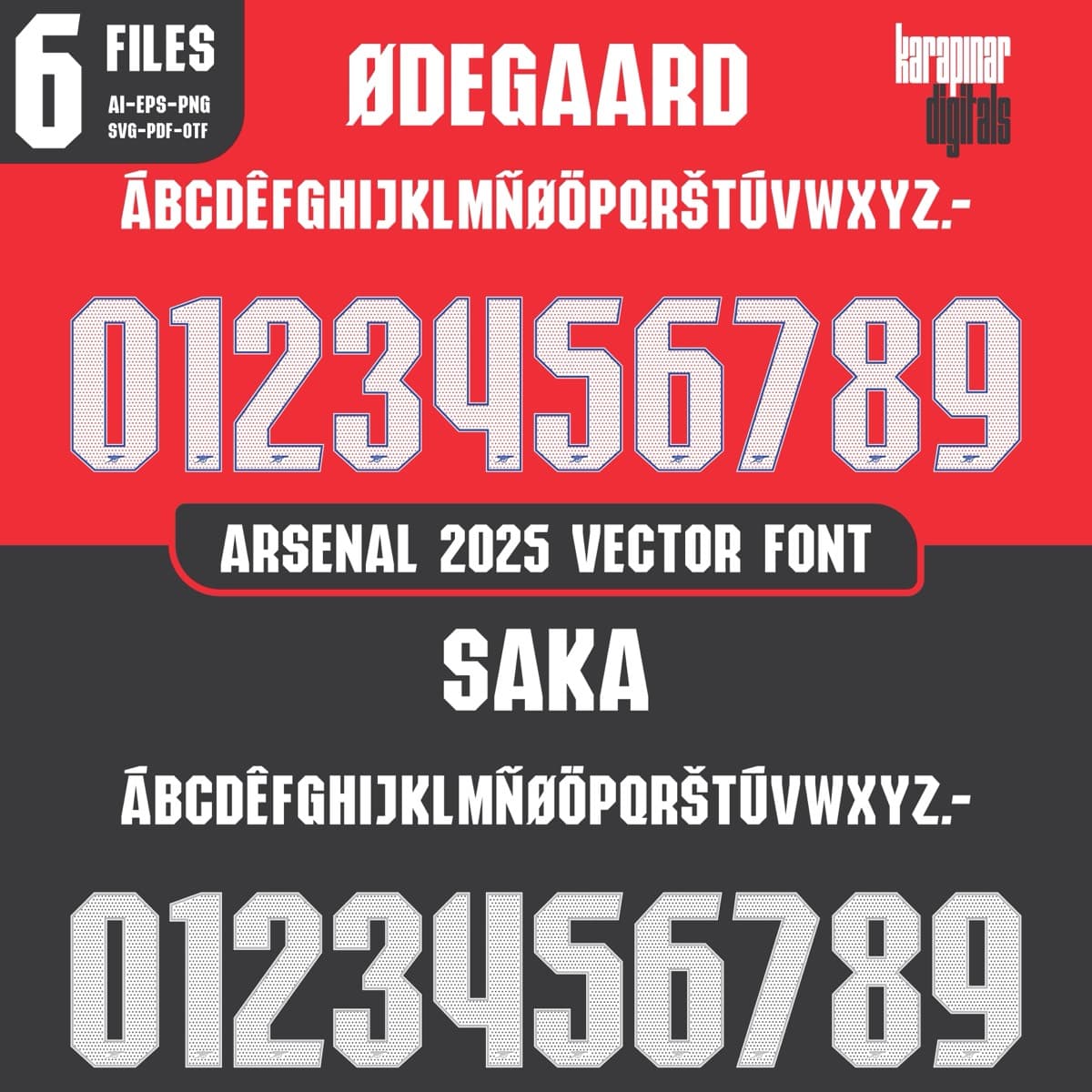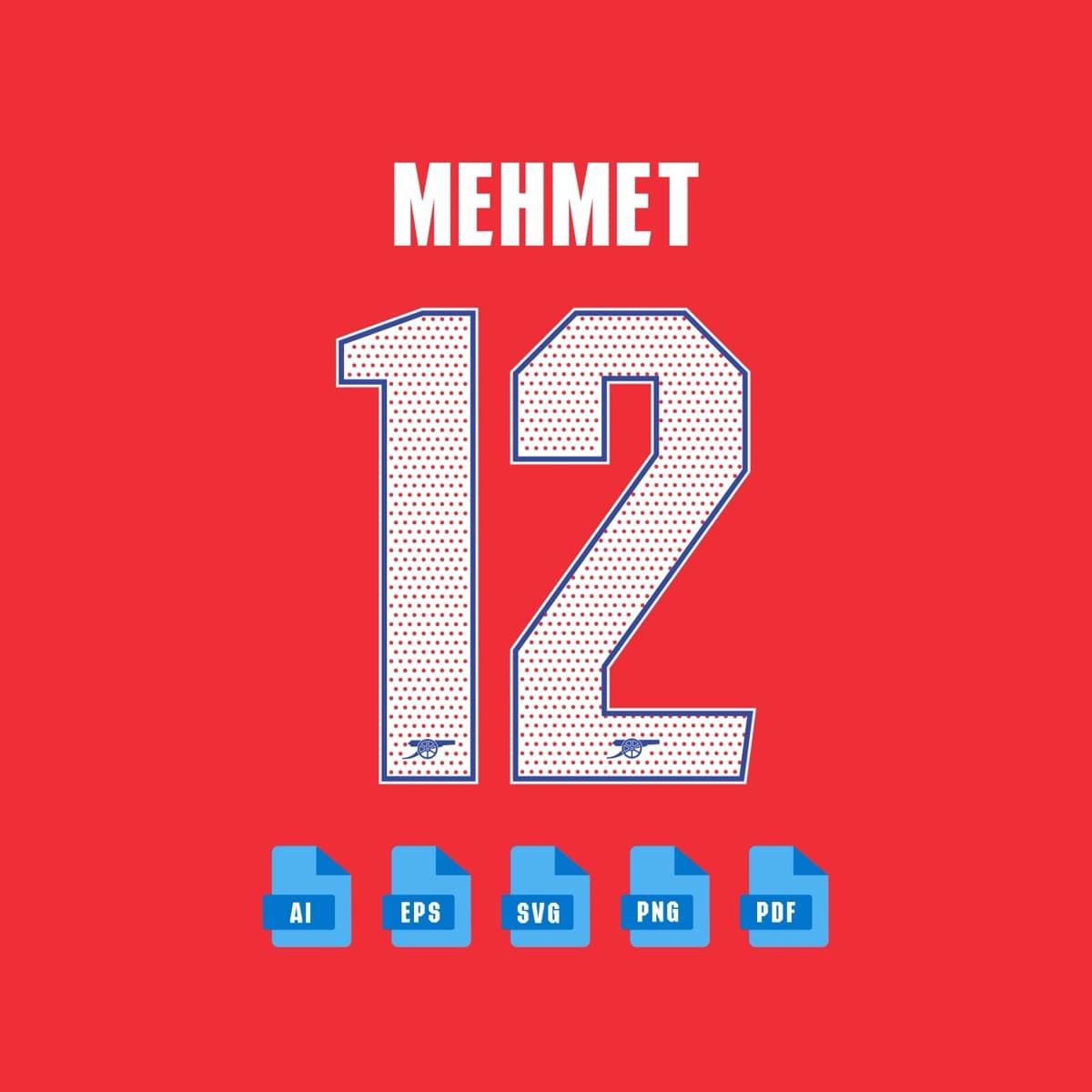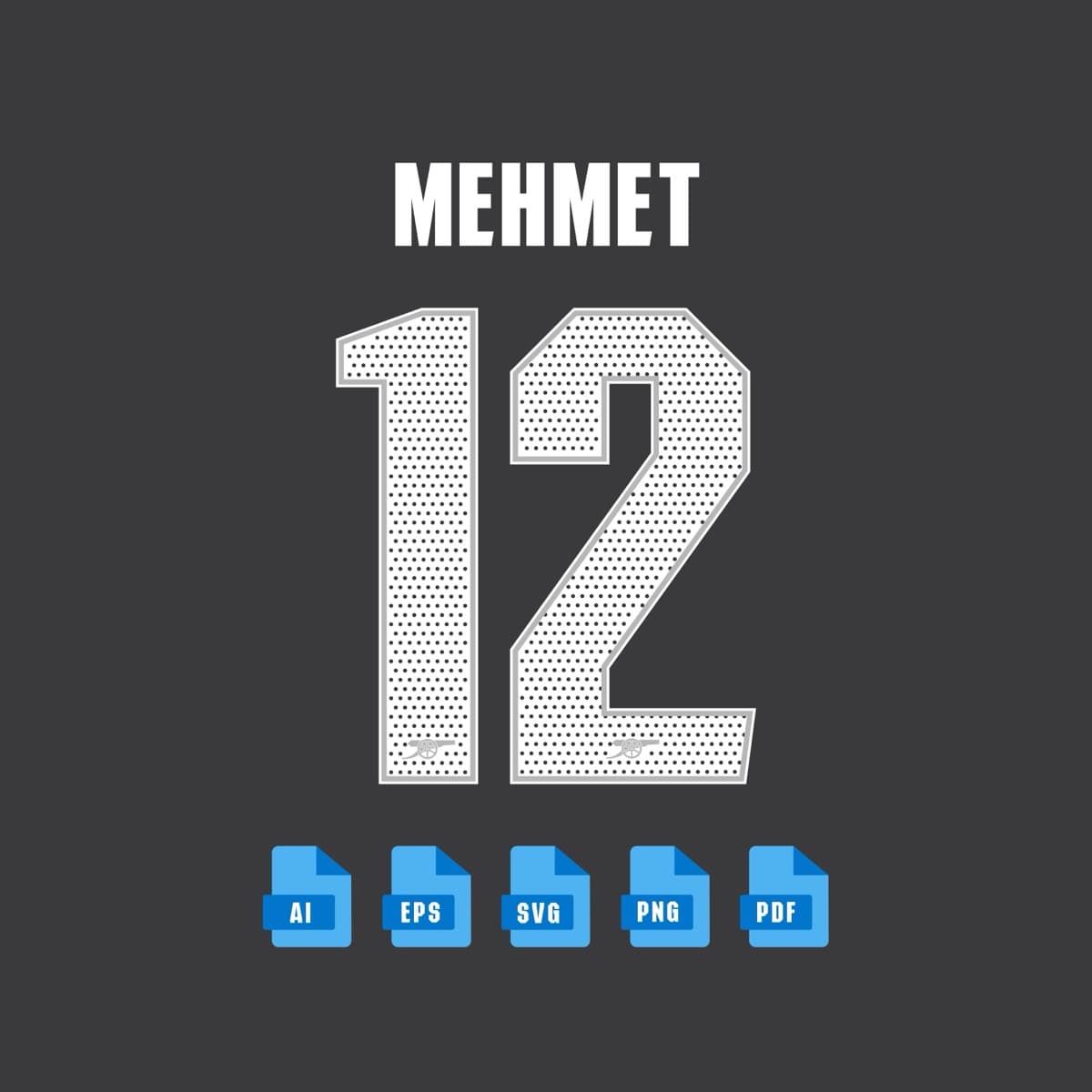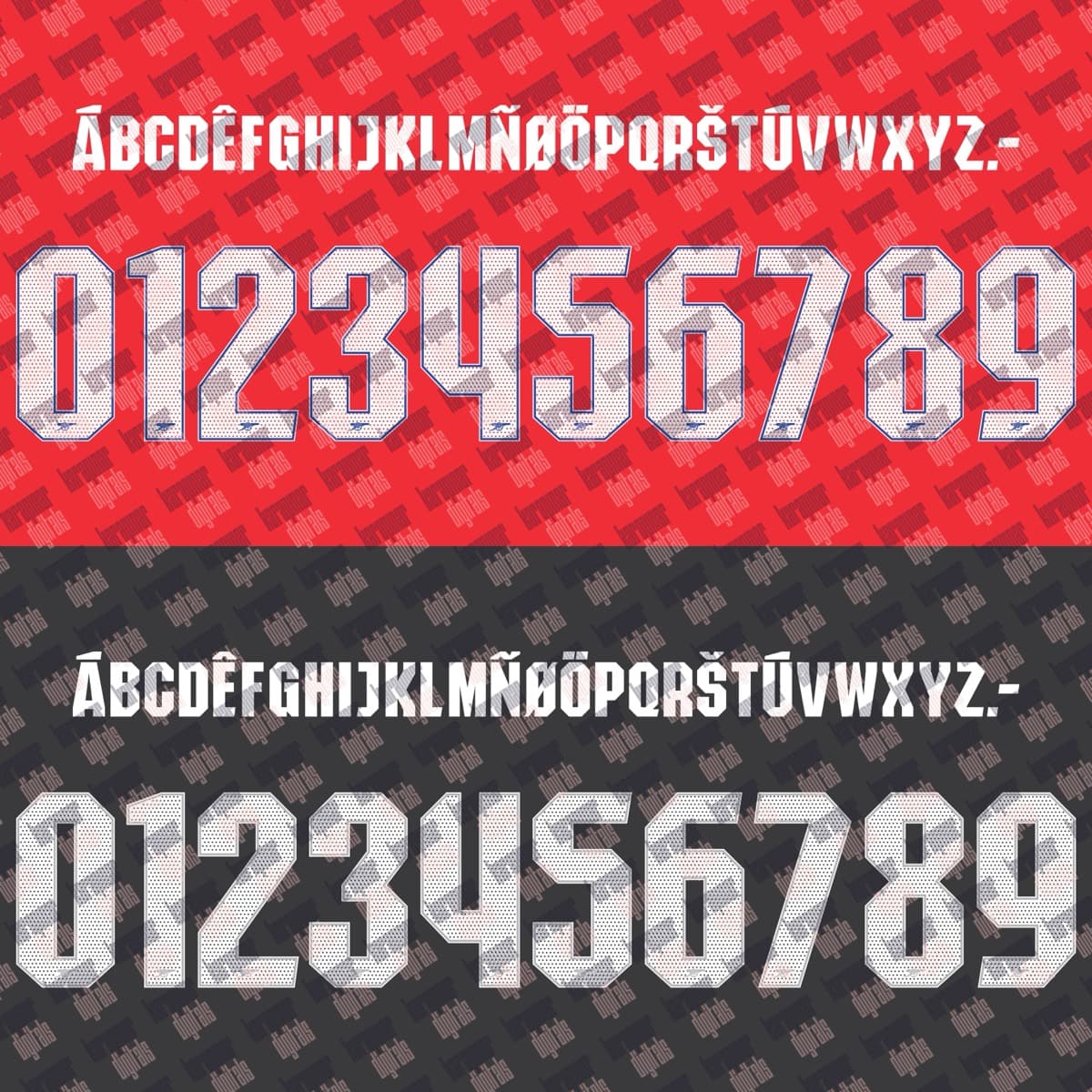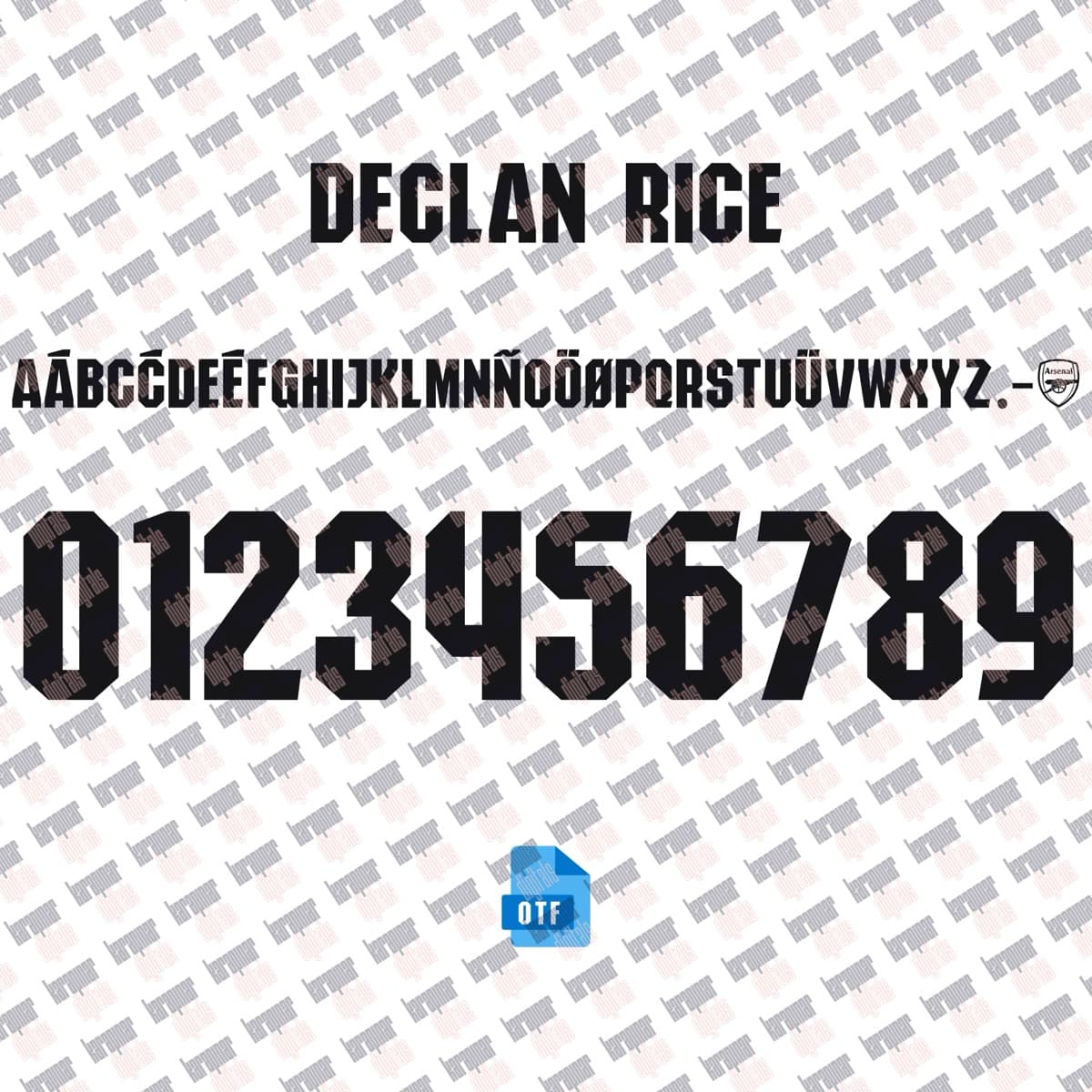
Arsenal 2025 football jersey font for Arsenal — vector letters and numbers preview
Arsenal 2025
A set inspired by the Arsenal 2025 jersey typography, with a name and number system redrawn for print and screen. Original curves, consistent weight and a complete 0–9 numeral family.